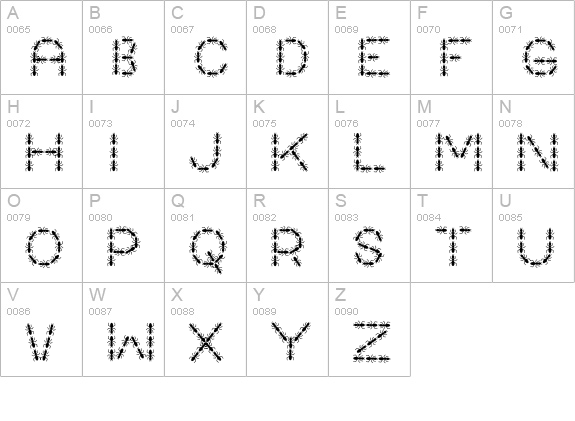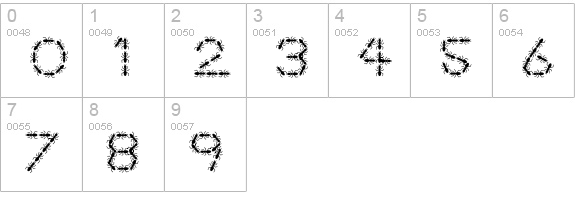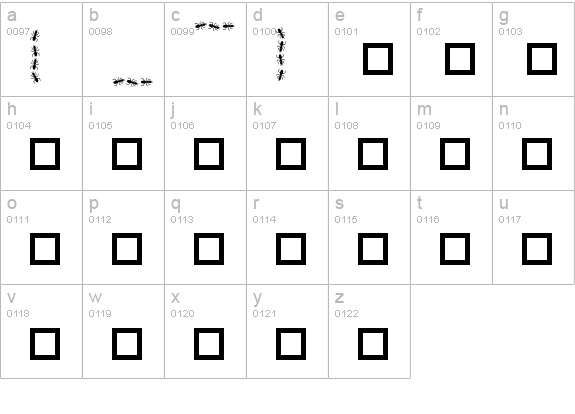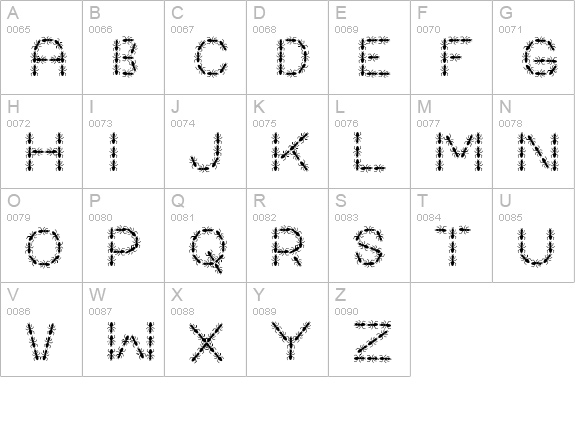
AntPile Font Details
AntPile font is a unique and playful typeface that captures the essence of creativity and whimsy. With its charming ant-inspired design, this font is perfect for adding a touch of fun to your projects. Each letter is meticulously crafted to resemble tiny ants marching in line, creating a visually appealing and distinctive look. This font is ideal for a variety of uses, from children's books and invitations to social media graphics and branding materials. Its bold and eye-catching style is sure to make a statement and leave a lasting impression on your audience. The best part is that AntPile font is completely free to download at FontsMarket.com. Simply visit the website and start using this delightful font in your designs today. Let the ants lead the way to a world of creativity and imagination with AntPile font.